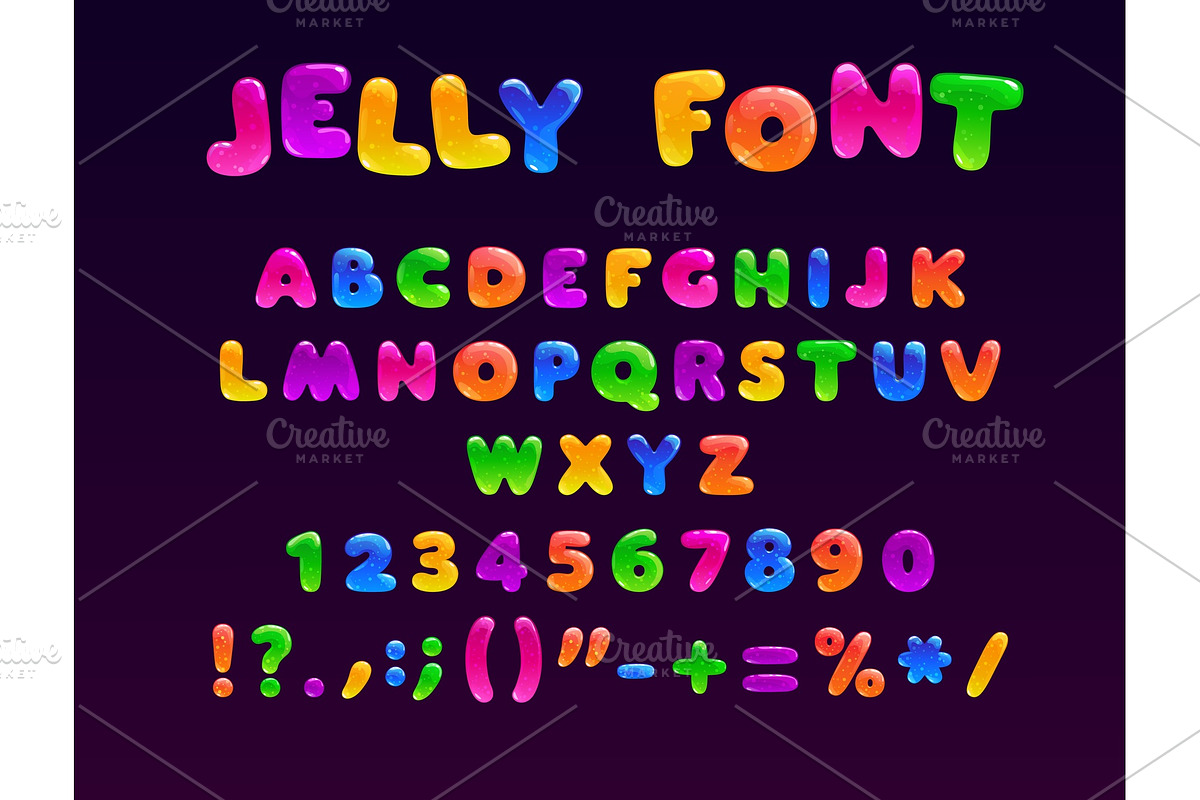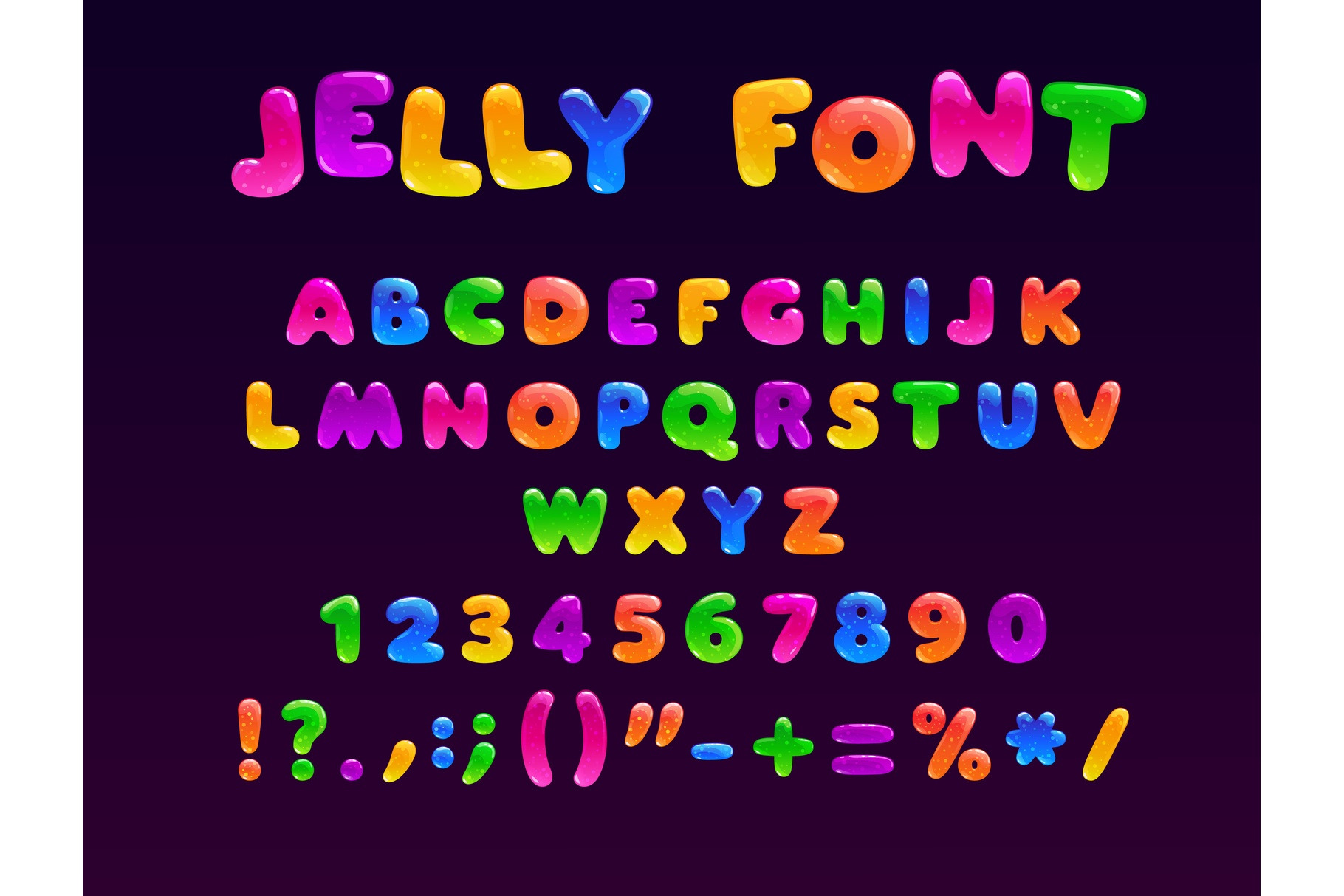
Fruit jelly font sweet letters
Fruit jelly font or sweet dessert alphabet letters and glossy sugar candy typeface, cartoon vector ABC. Jelly font with plump, bouncy characters, 3D glossy sugar font and English alphabet of marmalade. Keywords - font, jelly, fruit, sweet, dessert, alphabet, letter, candy, vector, typeface, cartoon, abc, glossy, sugar, plump, bouncy, character, 3d, english, marmalade, text, gummy, texture, bubble, rainbow, colorful, color, kid, typo, type, graphic, slime, confection, gum, gelatin, typography, berry, lollipop, jam, birthday, creative, typeset, kindergarten, logo, pink, blue, purple, green, yellow